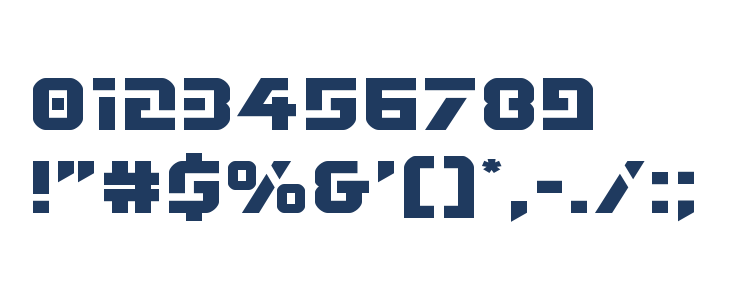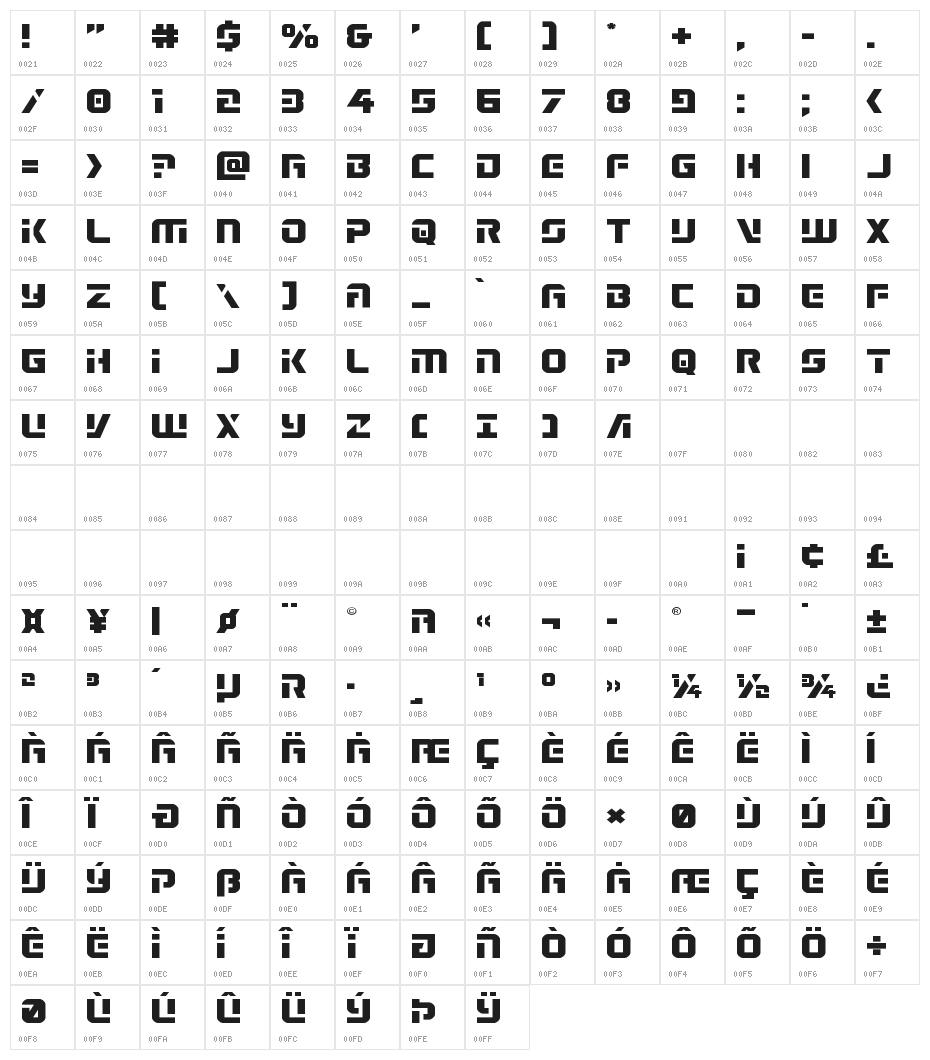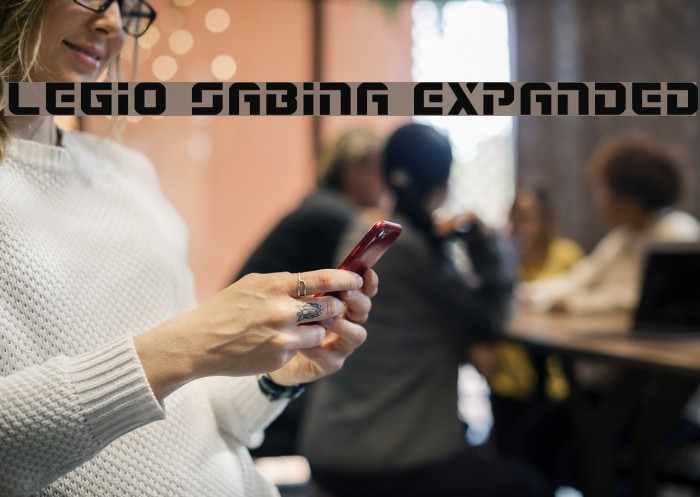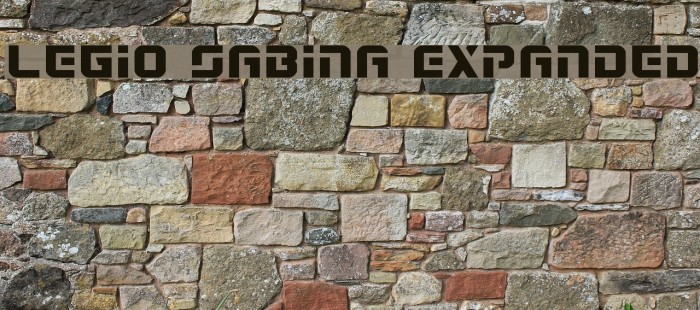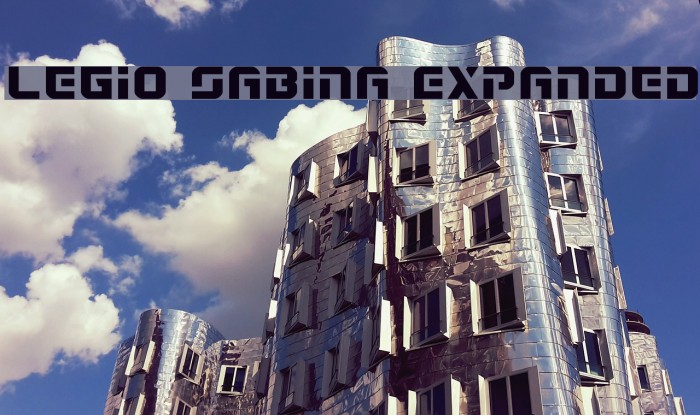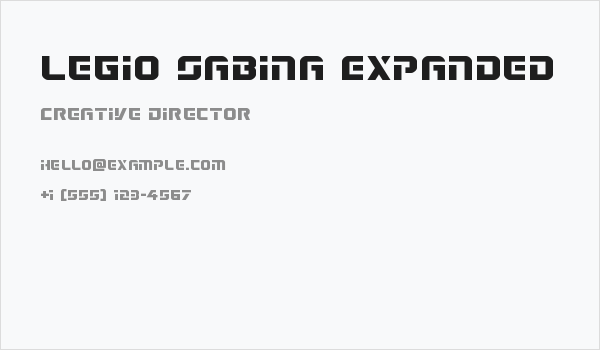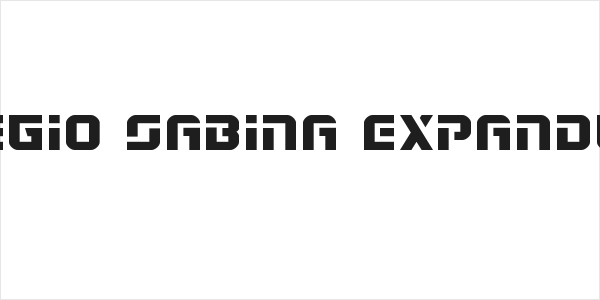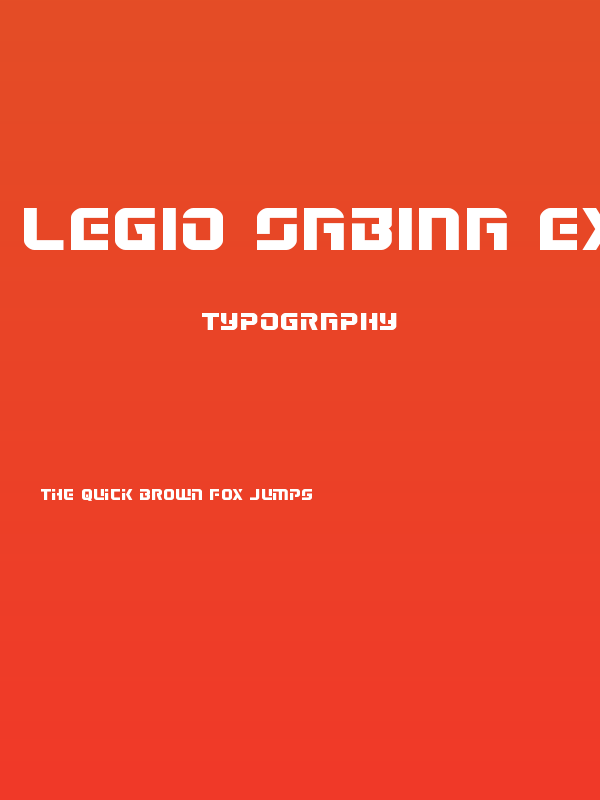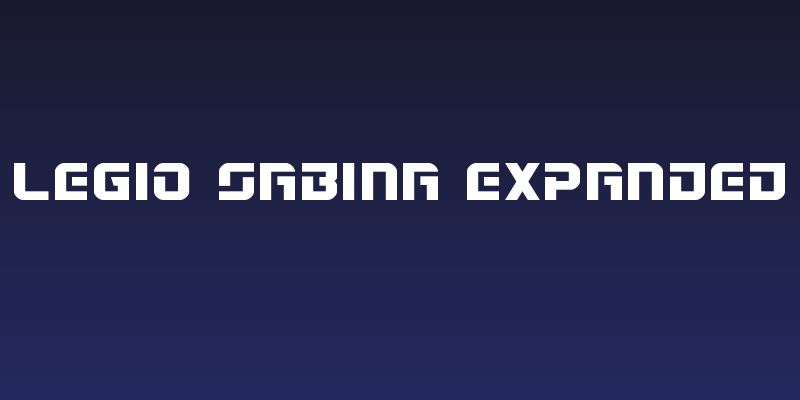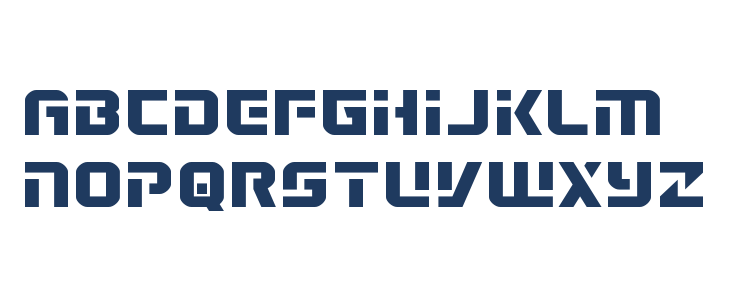
Legio Sabina Expanded Font
Legio Sabina Expanded Description
This font exhibits a bold and futuristic design with a geometric and angular structure. The characters are crafted with sharp edges and a blocky appearance, creating a strong visual impact. The uppercase and lowercase letters maintain a consistent style, with a uniform height and width that enhances readability. The numbers and special characters follow the same design principles, ensuring a cohesive look across all elements. The font's expanded width gives it a commanding presence, making it ideal for attention-grabbing headlines and titles. Its modern aesthetic is well-suited for projects that require a contemporary and assertive typeface.